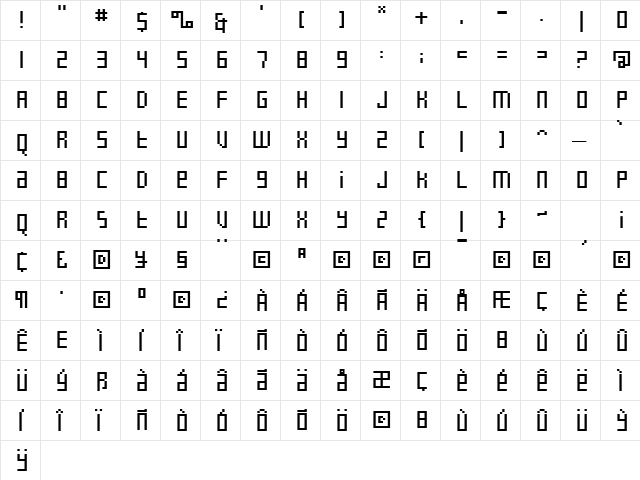
Esquire Regular
Design Context for Esquire Typeface
Esquire is a composed and adaptable typeface that performs quietly and consistently across a wide range of design contexts.